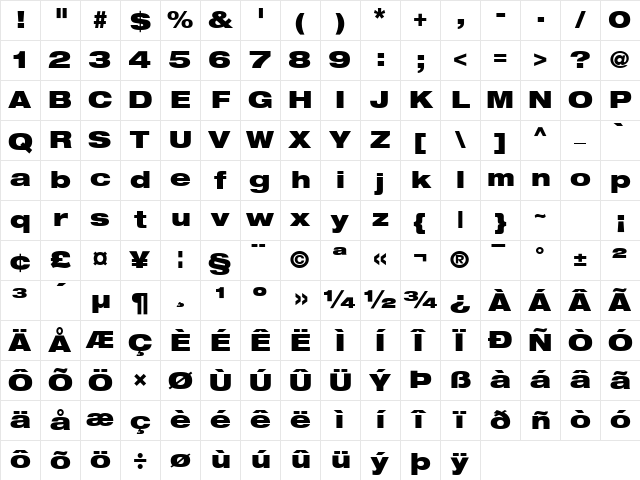
Complete Context Reprise BlackExp SSi Bold glyph index. Displaying only characters natively supported by Context Reprise BlackExp SSi Bold font.
Context Reprise BlackExp SSi is a composed and adaptable typeface that performs quietly and consistently across a wide range of design contexts. Its bold stroke weight gives it real presence on the page.